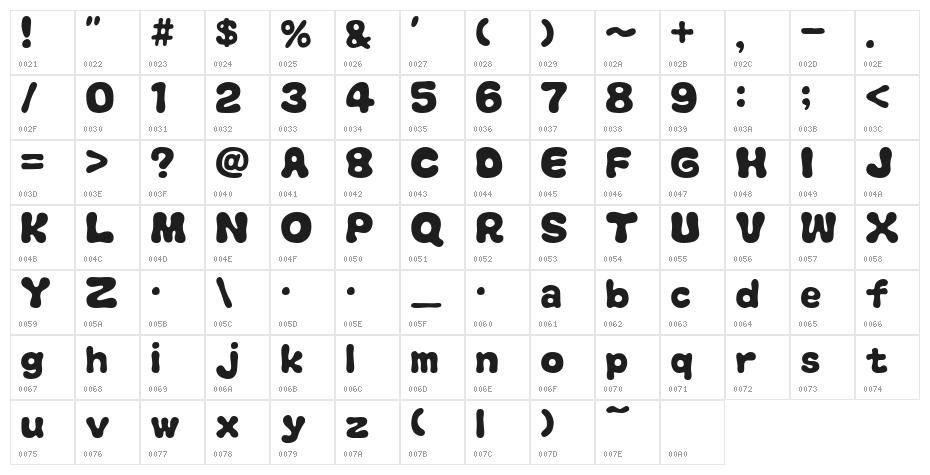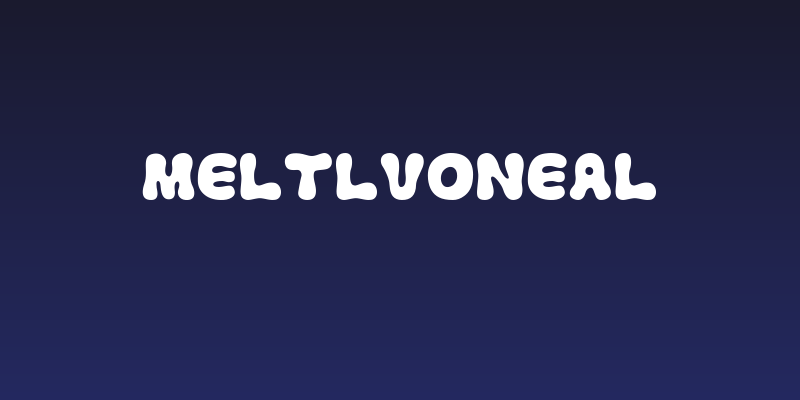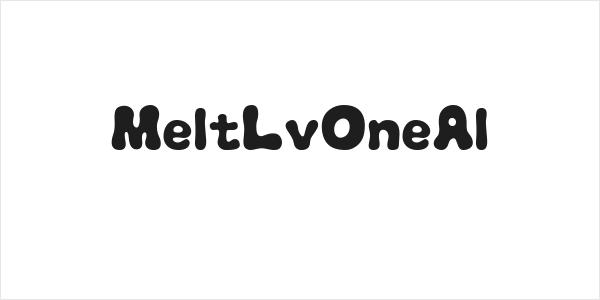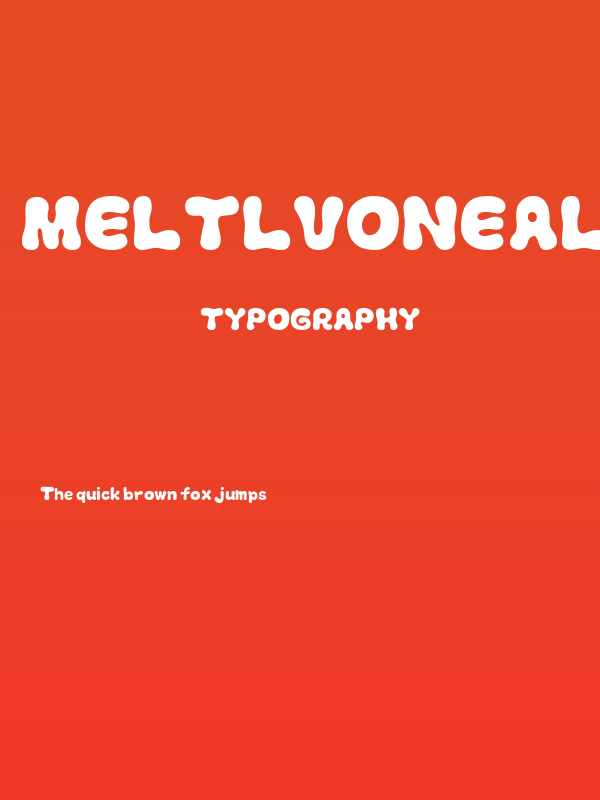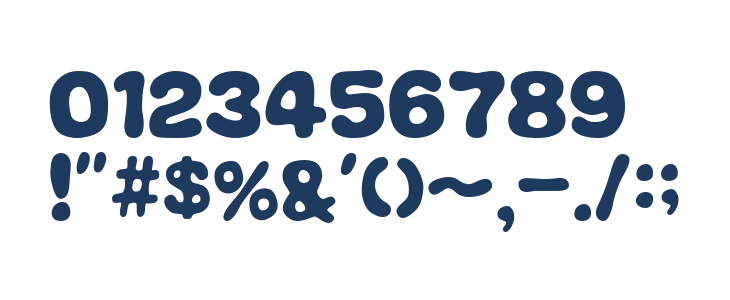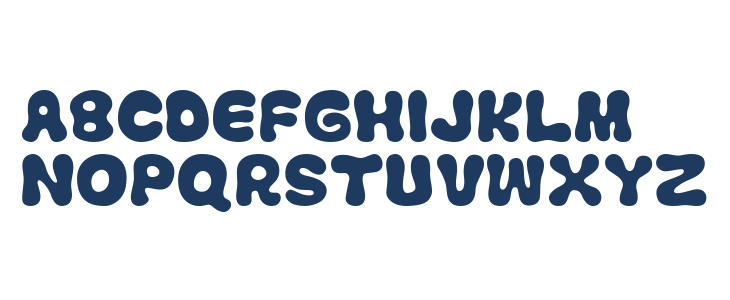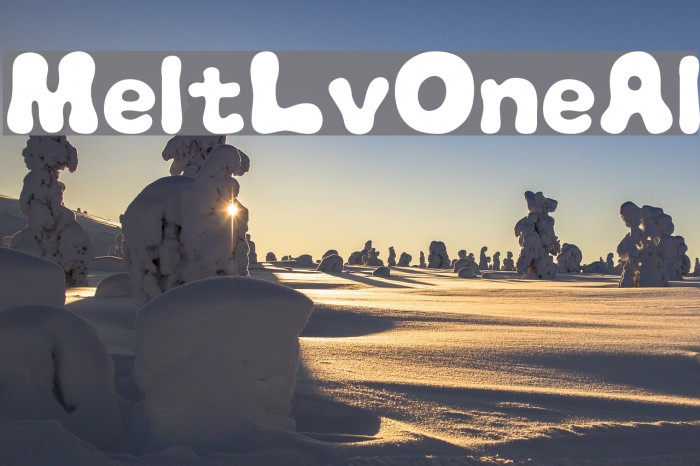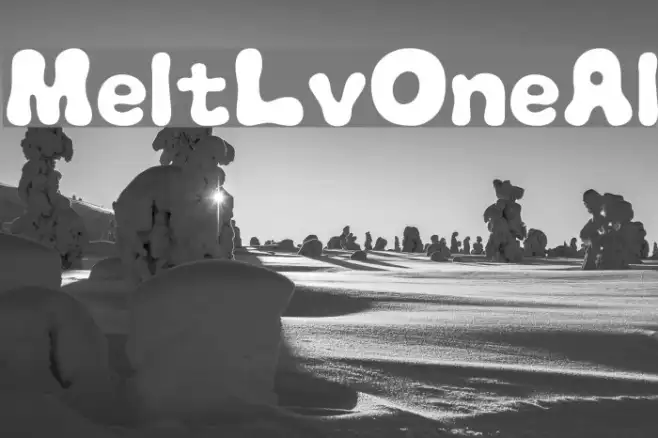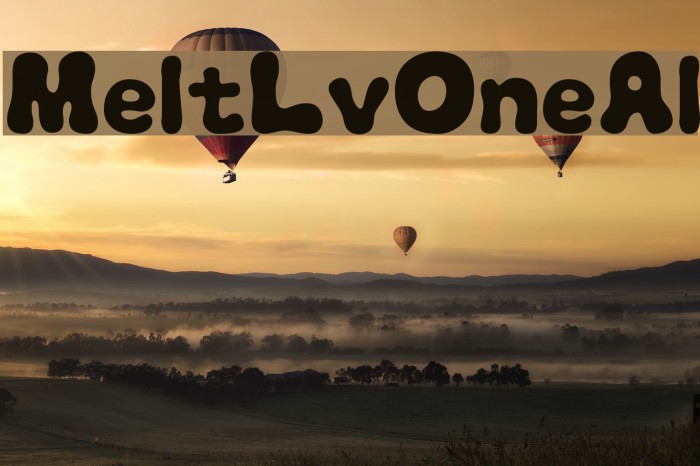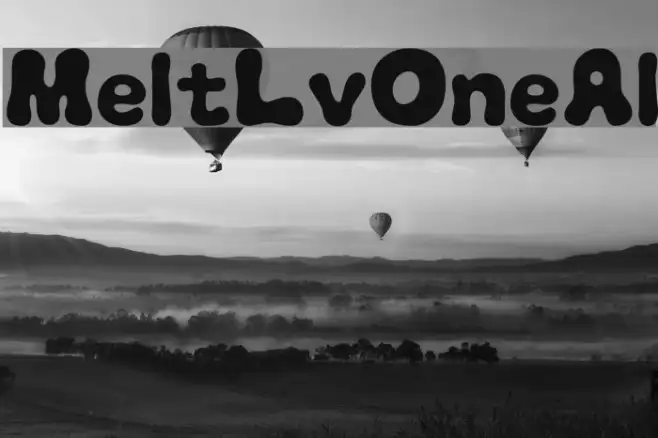
MeltLvOneAl Font
MeltLvOneAl Description
This playful and bold font features rounded, bubbly characters that give off a fun and friendly vibe. The letters are thick and slightly irregular, adding a whimsical touch to the overall design. The font maintains a consistent weight throughout, with smooth curves and a soft appearance. Its unique style makes it stand out, perfect for projects that require a touch of creativity and warmth. The numbers and special characters are designed to match the playful aesthetic, ensuring a cohesive look across all text elements.